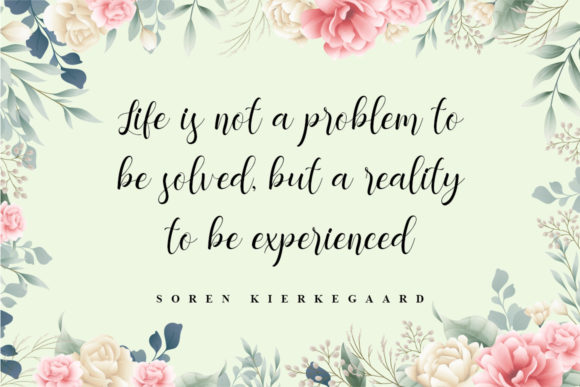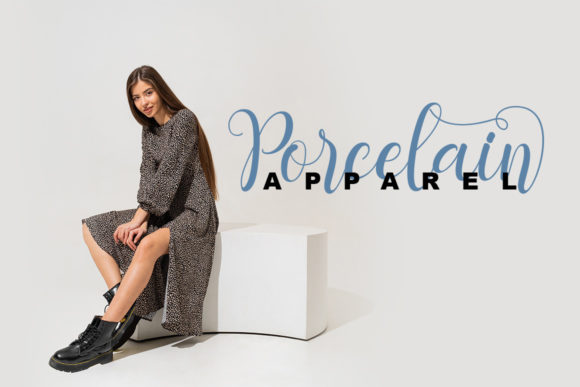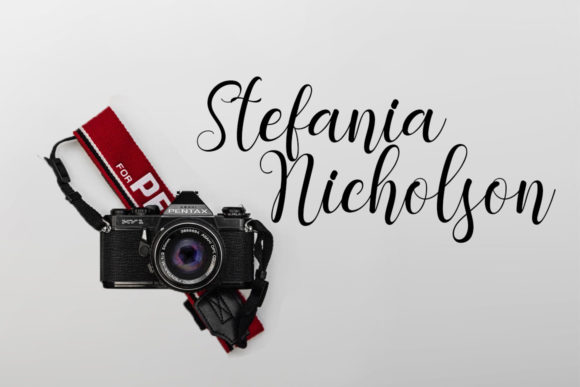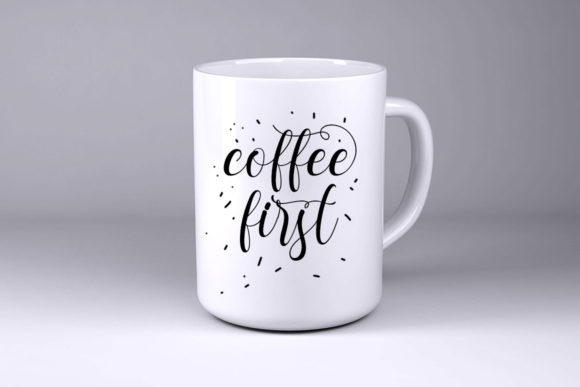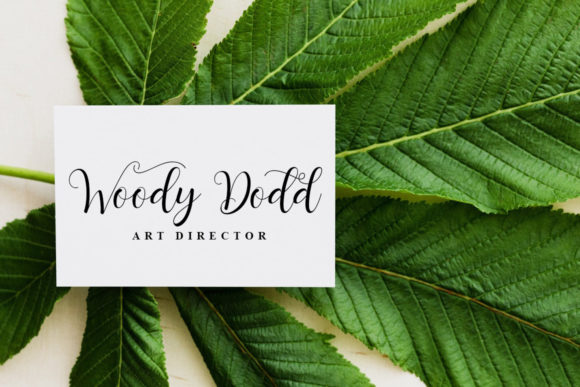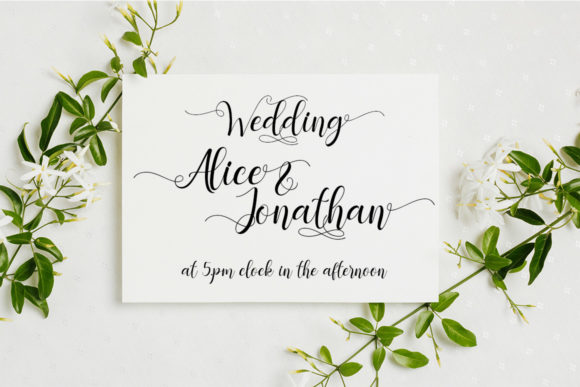
Unlock the Secrets of Elegant Typography with Blossom Font
Have you ever found yourself lost in a sea of creative possibilities, trying to bring a vision to life on paper? It’s that moment when the perfect font can make all the difference. For designers, the quest for the perfect script font is a never-ending journey. Enter Blossom Font, an elegant script font that embodies the perfect blend of classic charm and modern sophistication.
Blossom Font is more than just a font – it’s a tool that can elevate your designs and leave a lasting impression. With its impeccable form and contemporary atmosphere, this font is sure to add a touch of sophistication to any project. Its PUA encoding also makes it easy to access all glyphs and swashes, giving you complete control over your design. Whether you’re a seasoned pro or just starting out, Blossom Font is a valuable addition to any designer’s toolkit.
Blossom Font Key Features
- Font Style: Handwritten, Script, Casual
- Unique Characteristics: Whimsical, elegant, and cursive design with subtle flourishes and connections between letters
Blossom Font Review
Blossom Font is a beautiful, delicate font that shines ✨ when used for titles and headings. Its unique, floral design makes it perfect for projects that need a touch of whimsy and elegance. The font’s subtle imperfections and irregularities add character, making it stand out from more generic, mass-produced fonts.
- Unique, hand-crafted design that adds character to any project
- Perfect for titles, headings, and other text elements that need a touch of whimsy
- Subtle imperfections and irregularities add depth and interest
Limitsations:
- Not ideal for large blocks of text, as it can be difficult to read
- May not be suitable for projects that require a more professional or corporate look
- Can be overpowering if used too extensively
Overall, Blossom Font is a beautiful addition to any designer’s toolkit. While it has its limitations, it shines ✨ when used thoughtfully and in moderation. I would recommend it for projects that need a touch of elegance and whimsy.
The Blossom Font is ideal for use in wedding invitations, baby shower invitations, and other feminine-themed designs. It’s also perfect for creating elegant and sophisticated titles, headings, and captions. Additionally, the font can be used in combination with floral patterns and illustrations to create a whimsical and playful design.